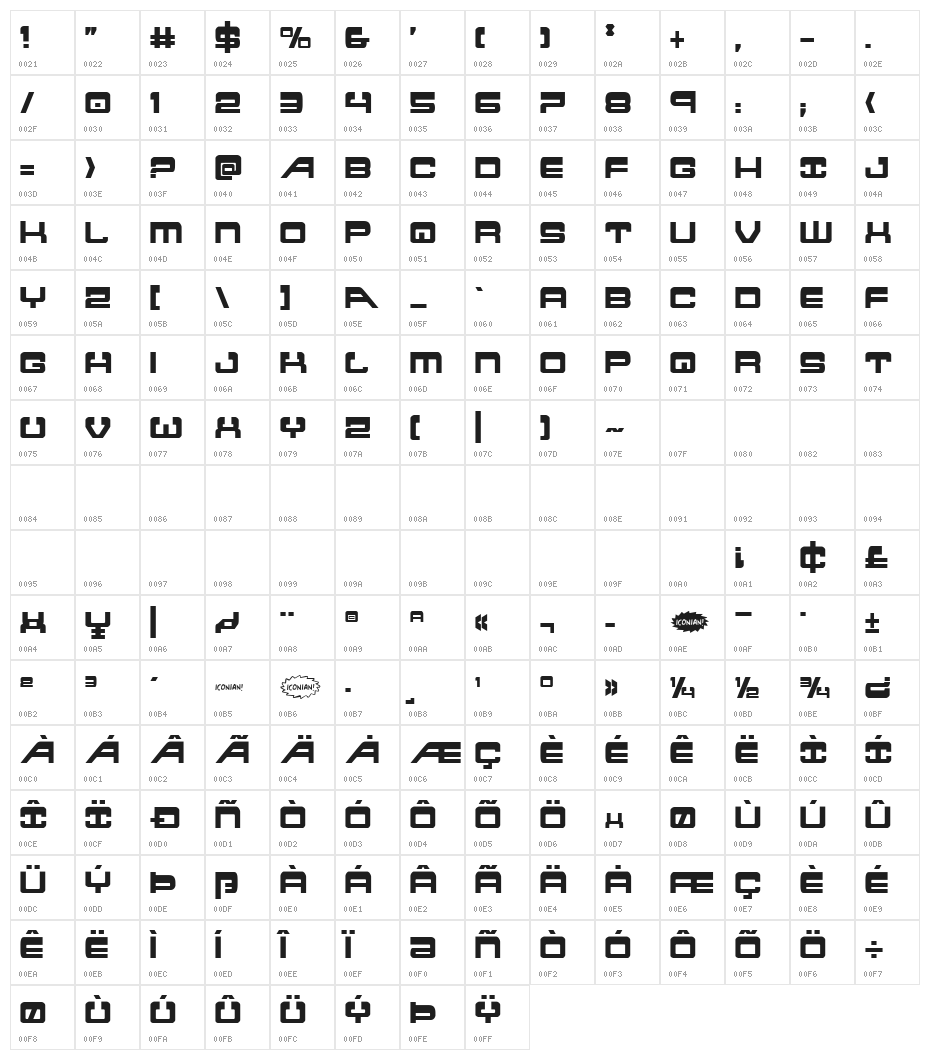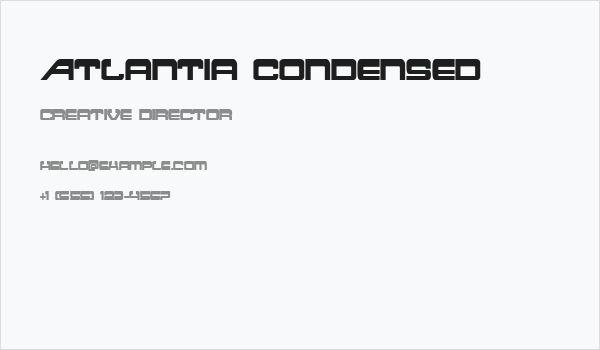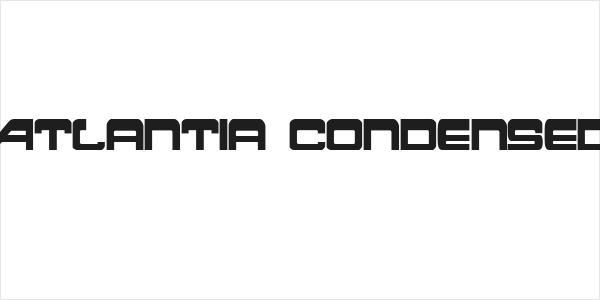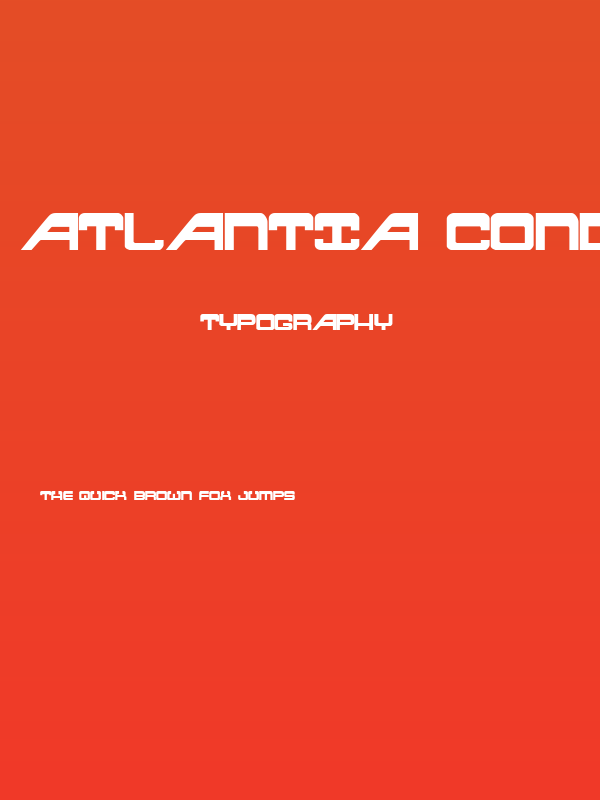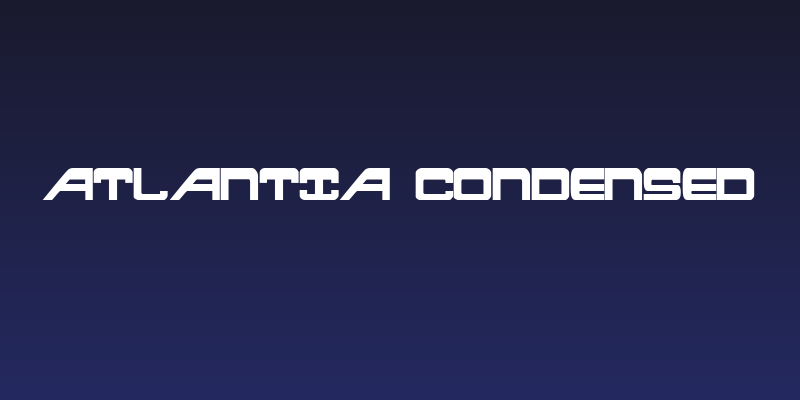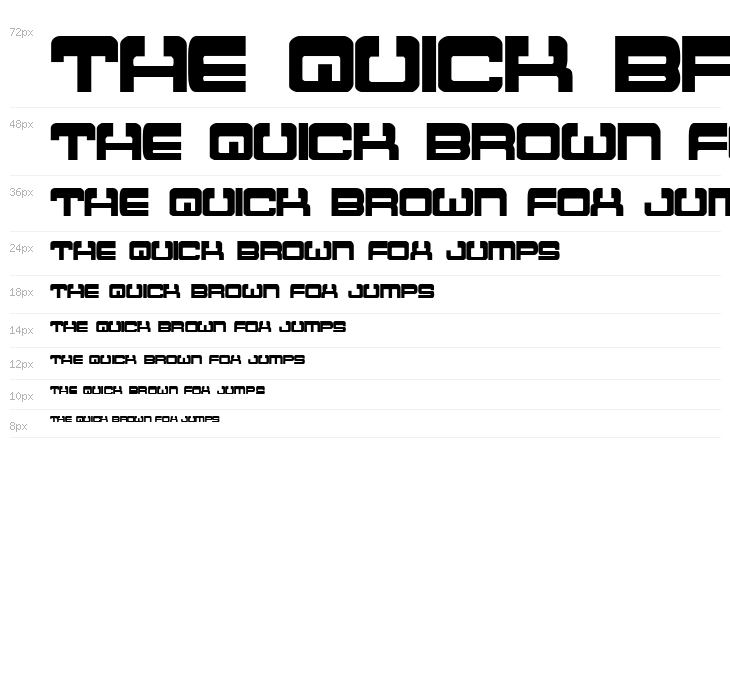
Atlantia Condensed Font
Atlantia Condensed Description
This font features a bold and futuristic design with a condensed structure. The characters are geometric and blocky, with a strong emphasis on horizontal lines. The uppercase letters are uniform in height, creating a cohesive and streamlined appearance. The numerals and special characters follow the same bold and angular style, ensuring consistency throughout. The font's design is ideal for making a strong visual impact, with its thick strokes and minimal contrast between thick and thin lines. The overall aesthetic is modern and industrial, making it suitable for projects that require a contemporary and edgy look.
| Proposed Projects | Ideal for technology branding, sci-fi posters, video game titles, and modern advertising. |